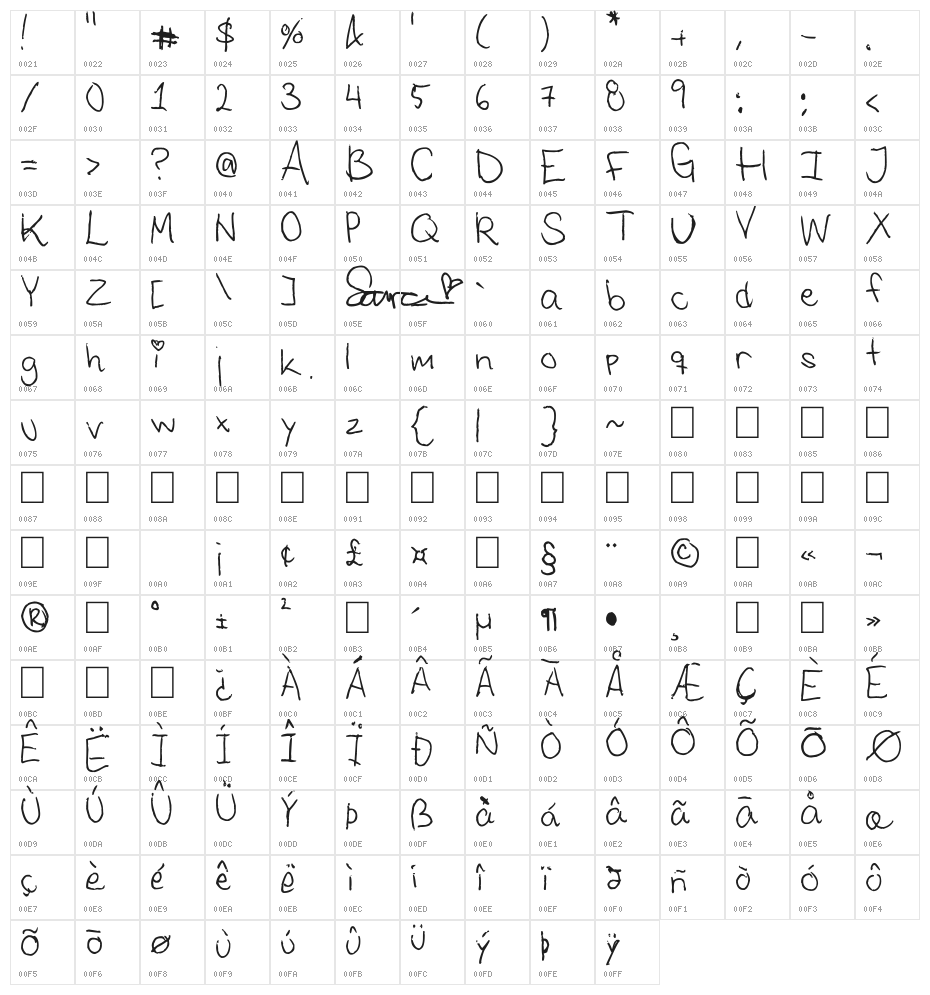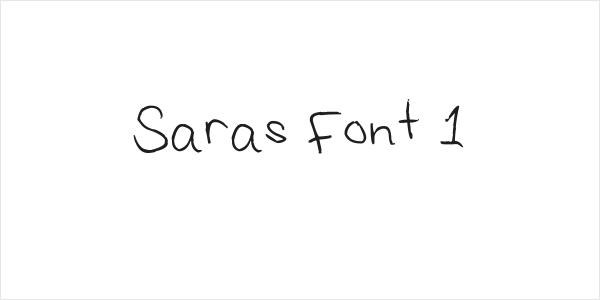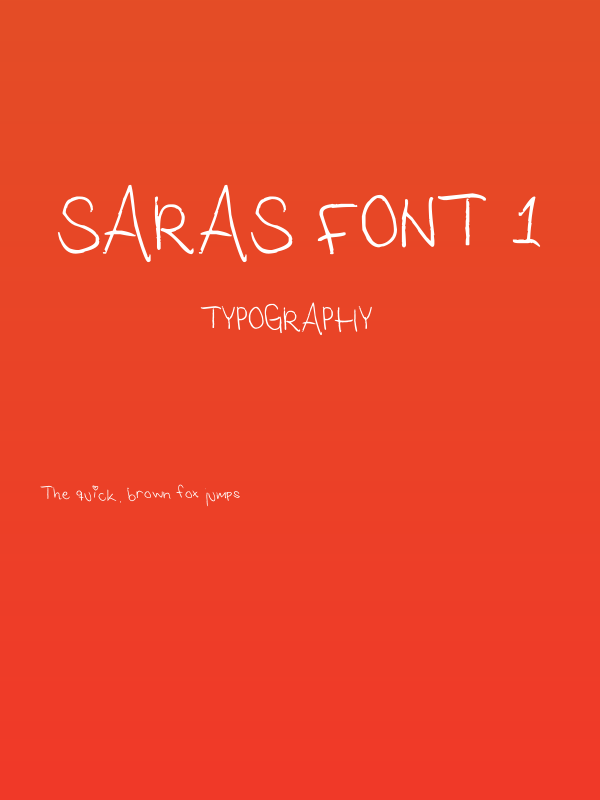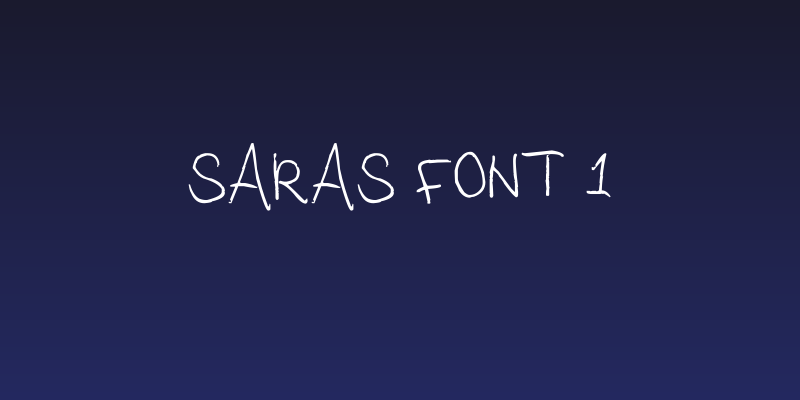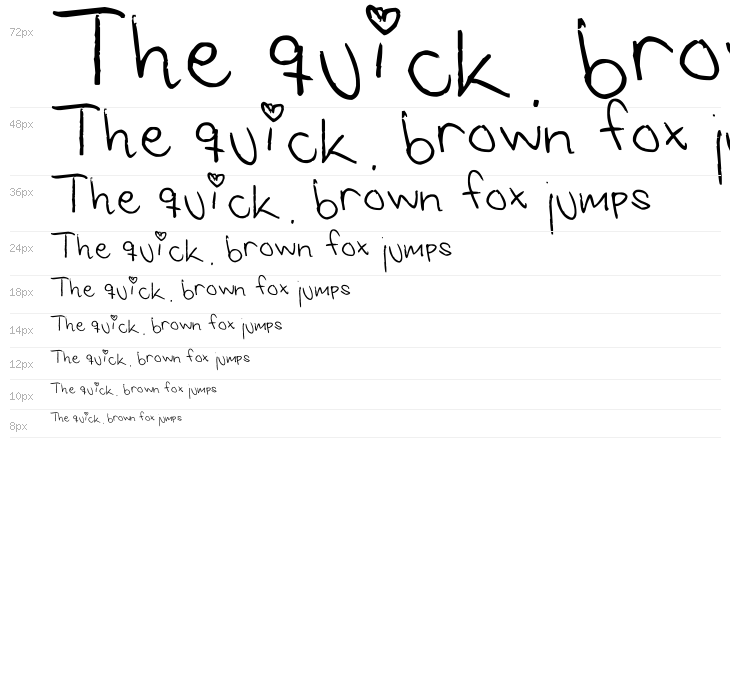
Saras Font 1 Font
Saras Font 1 Description
This font features a playful and casual handwritten style, characterized by its irregular strokes and whimsical appearance. The letters are slightly uneven, giving it a natural and organic feel, reminiscent of a personal note or doodle. The uppercase letters are bold and prominent, while the lowercase letters maintain a consistent flow, adding to the font's charm. The numbers and special characters follow the same informal style, making it versatile for various creative projects. The overall look is friendly and approachable, perfect for designs that require a personal touch.
Overall StyleCasual, Playful
Use CaseHeadlines, Informal text, Creative projects
Proposed ProjectsIdeal for greeting cards, children's books, personal blogs, and informal branding.